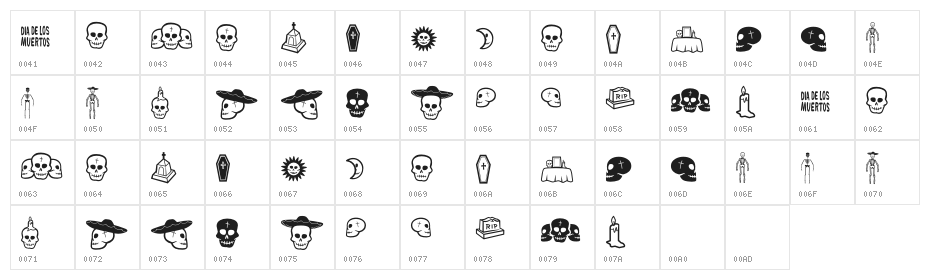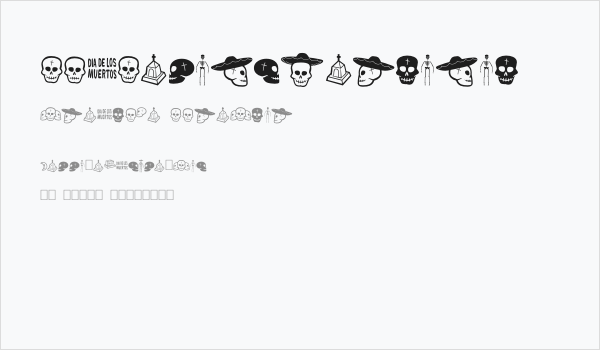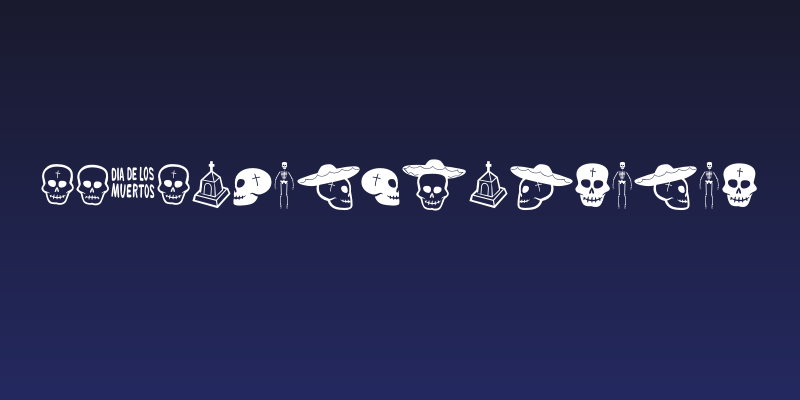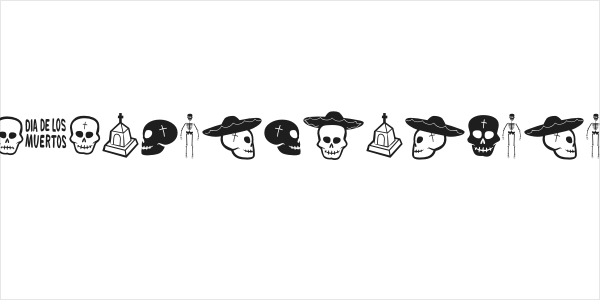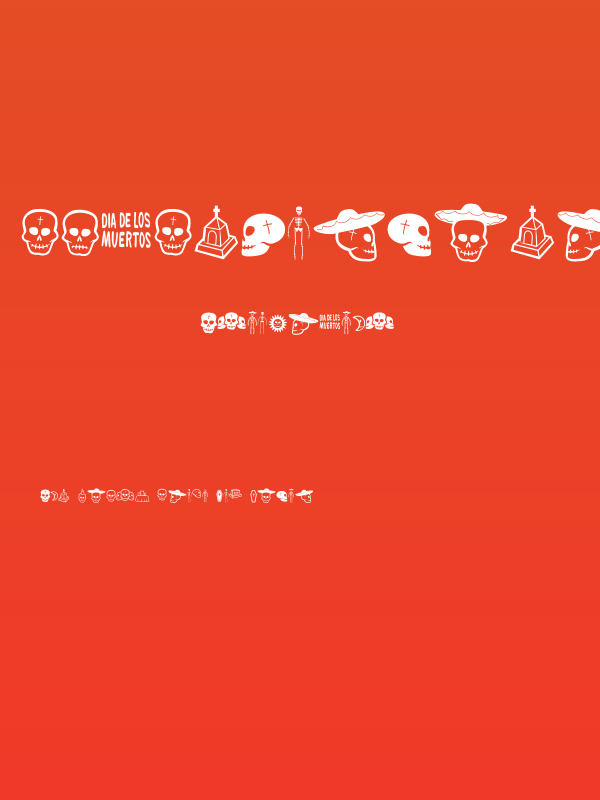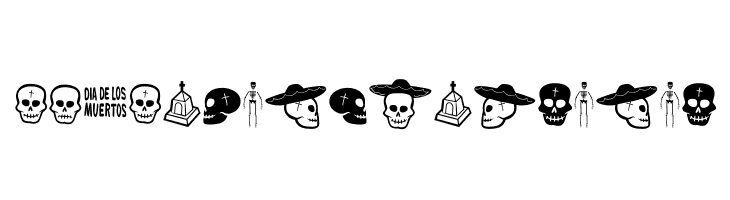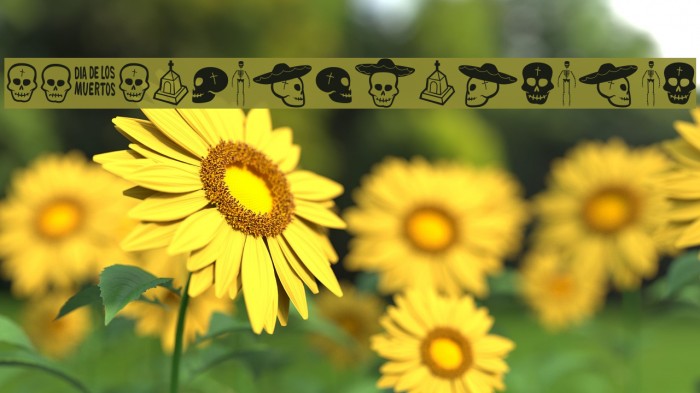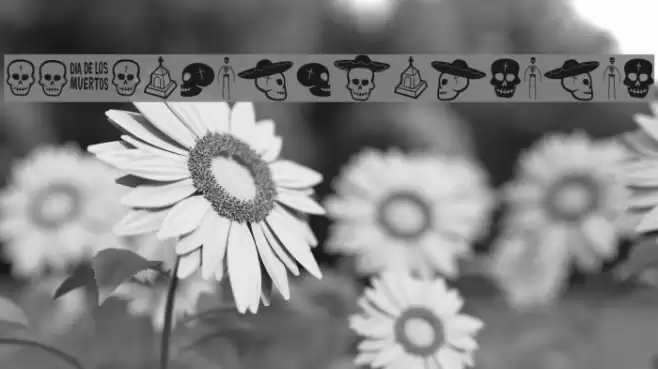
DiaDeLosMuertosOT Font
DiaDeLosMuertosOT Description
This font is a decorative and thematic typeface inspired by the Dia de los Muertos celebration. It features a series of intricate and playful glyphs that include skulls, skeletons, gravestones, and other festive symbols associated with the holiday. The characters are bold and expressive, capturing the vibrant and lively spirit of the festival. The design is highly detailed, with each symbol carefully crafted to convey a sense of celebration and remembrance. This typeface is perfect for adding a touch of cultural flair and festivity to any project, making it ideal for themed events, posters, and creative designs that aim to honor and celebrate the Day of the Dead.